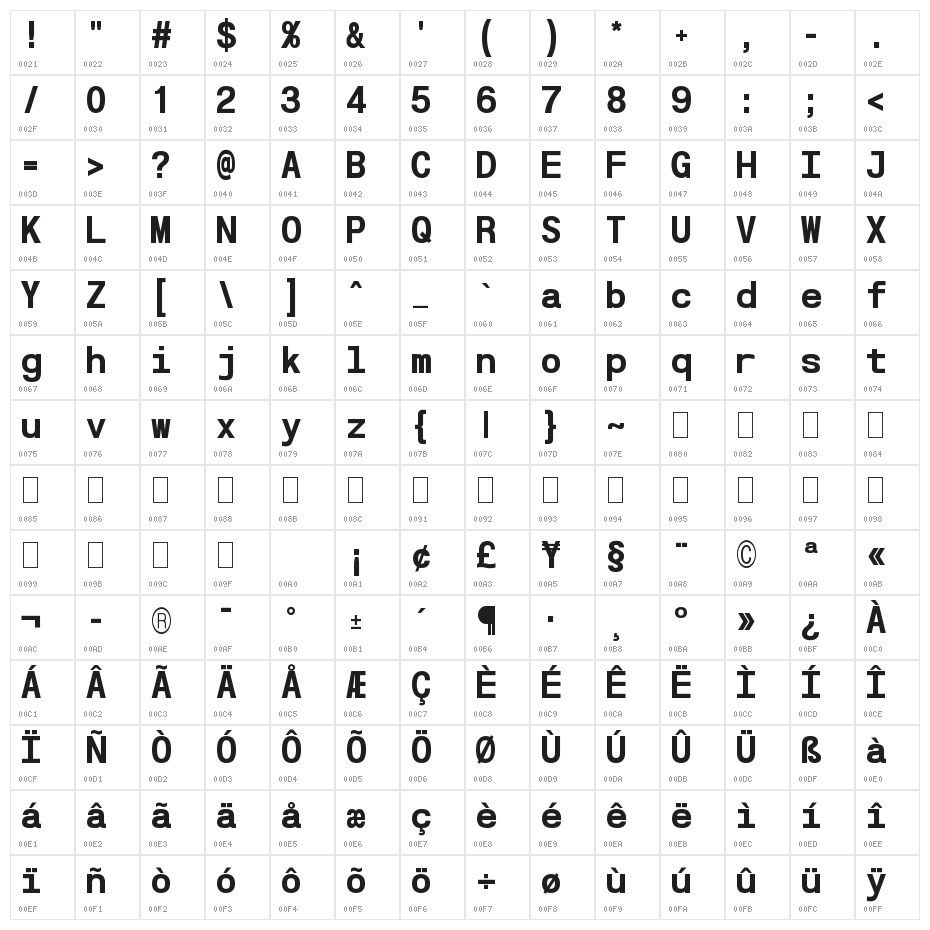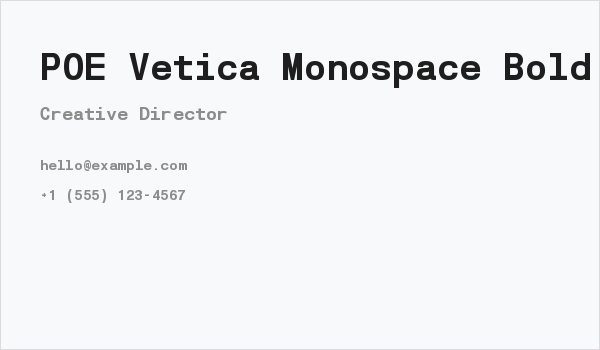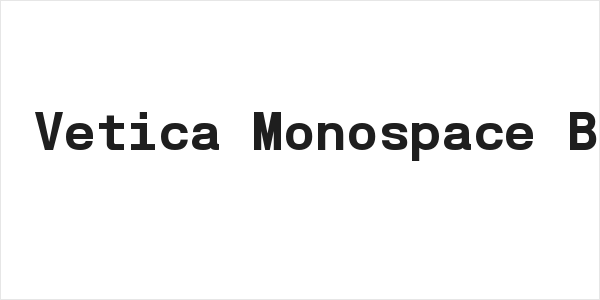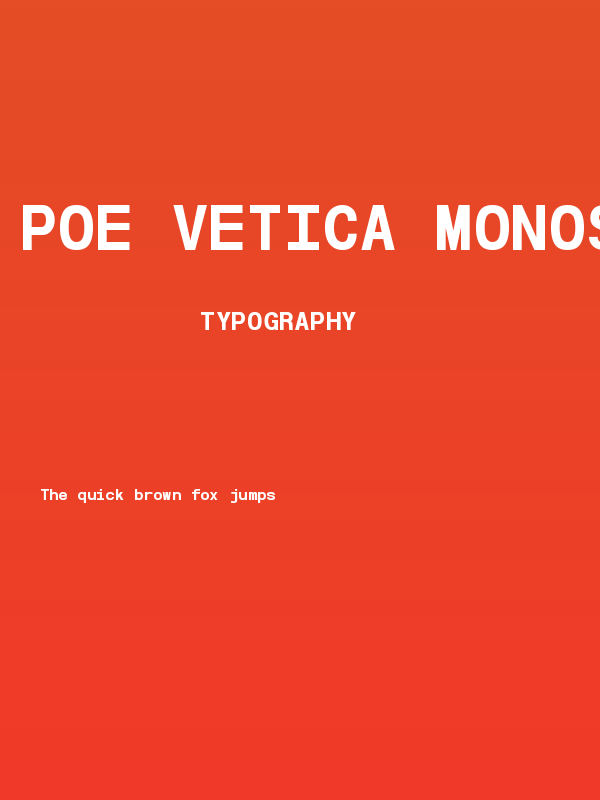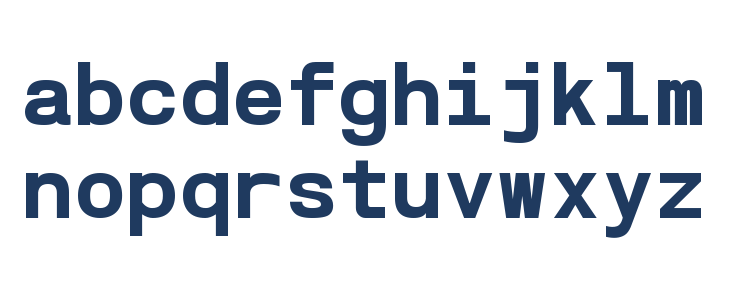
POE Vetica Monospace Bold Font
POE Vetica Monospace Bold Description
This font is a bold, monospaced typeface characterized by its uniform width across all characters, providing a clean and structured appearance. The uppercase and lowercase letters are well-defined, with consistent stroke thickness that enhances readability. The numerals are clear and distinct, making them suitable for data presentation. The special characters are straightforward and align well with the overall geometric style of the font. Its bold weight and monospaced nature make it ideal for coding, technical documents, and any application where clarity and precision are paramount.
| Use Case | Coding, Technical documents, Data tables |
| Proposed Projects | Ideal for coding, technical documents, data tables, and any project requiring precise alignment. |